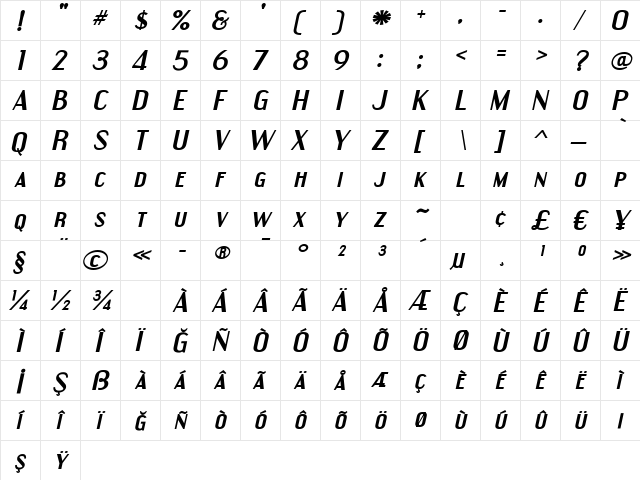
TrSah Engebrechtre Expanded Bold Italic Font Preview
Design Context for TrSah Engebrechtre Expanded Typeface
TrSah Engebrechtre Expanded takes a measured approach to typography — its balanced proportions and neutral character make it a reliable workhorse for both digital and print work. The slanted form adds forward momentum and visual energy. Its bold stroke weight gives it real presence on the page.
Pro Tip: Try TrSah Engebrechtre Expanded for annotation and caption copy alongside an upright companion — the contrast in angle creates a dynamic but ordered typographic system.